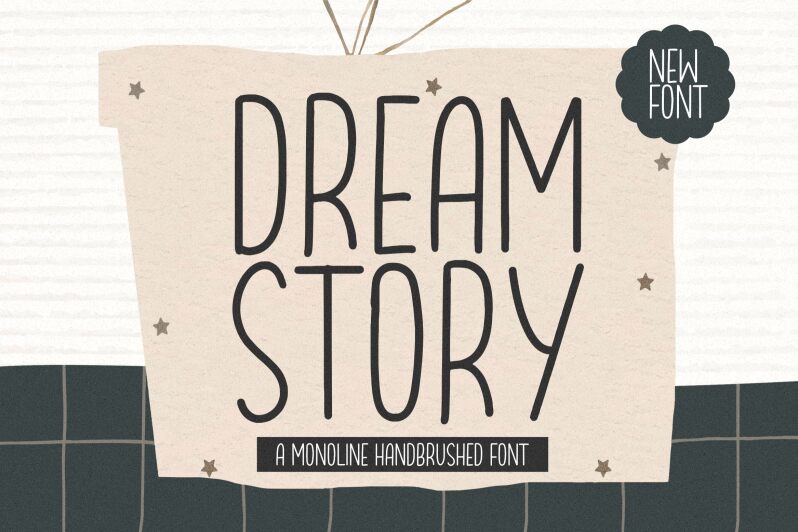
Dream Story
Dream Story, from the creative minds at Letterative Studio, evokes the personal touch of handwritten correspondence with its delicate and graceful strokes. Its slender profile infuses each word with a sense of intimacy, while the modestly condensed letters lend an air of elegance and sophistication. This font is a testament to the beauty found in simplicity, capturing a balance between casual charm and refined allure.
Ideal for invitations, branding projects, and editorial design where a touch of humanity is desired, Dream Story effortlessly communicates heartfelt stories and sentiments. It's perfect for designers seeking to convey warmth and authenticity in their creations.